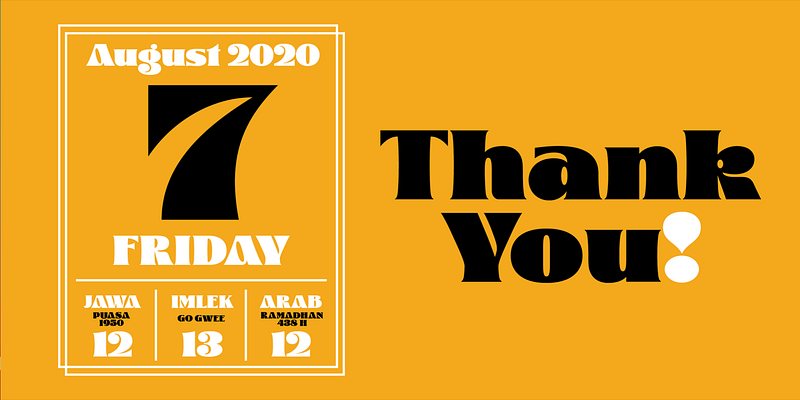
Glodok Font Free Download is a bold and culturally inspired display typeface influenced by the rich visual language of Chinese-Indonesian heritage and Southeast Asian urban design. With its strong strokes, squared shapes, and retro signage vibes, this font is ideal for restaurant branding, streetwear graphics, posters, and creative projects that seek a vibrant, nostalgic, and multicultural identity.
The design of Glodok Font Free Download is rooted in vernacular typography seen in bustling city districts and traditional storefronts, especially in areas like Glodok—Jakarta’s Chinatown. This font brings that unique energy into your design with authenticity and style. It’s bold, it’s expressive, and it instantly grabs attention in logos, titles, and packaging.
Glodok works best as a display font, allowing its distinct personality and structure to shine in large formats. It pairs well with simple sans-serifs or minimalist layouts, offering a dynamic cultural contrast that feels fresh and grounded in history.